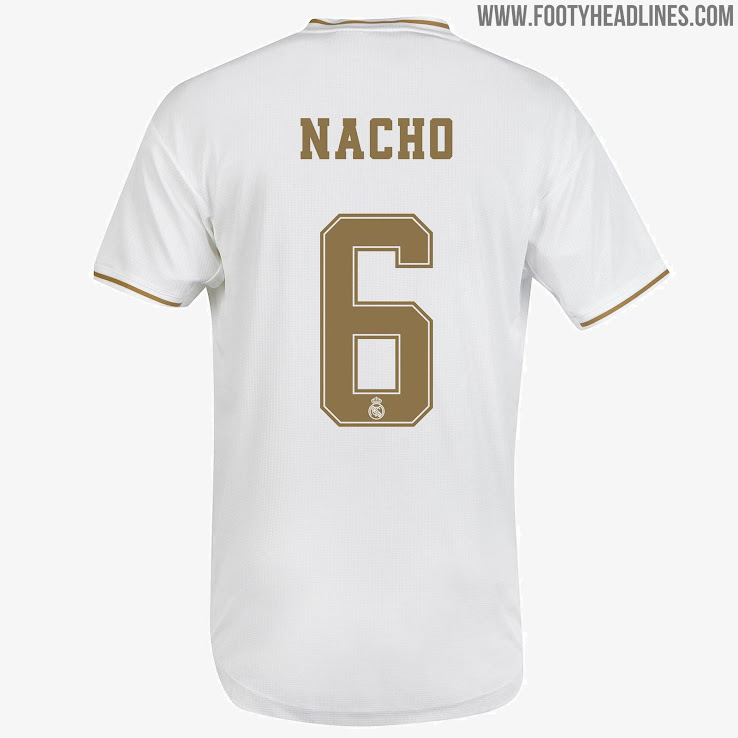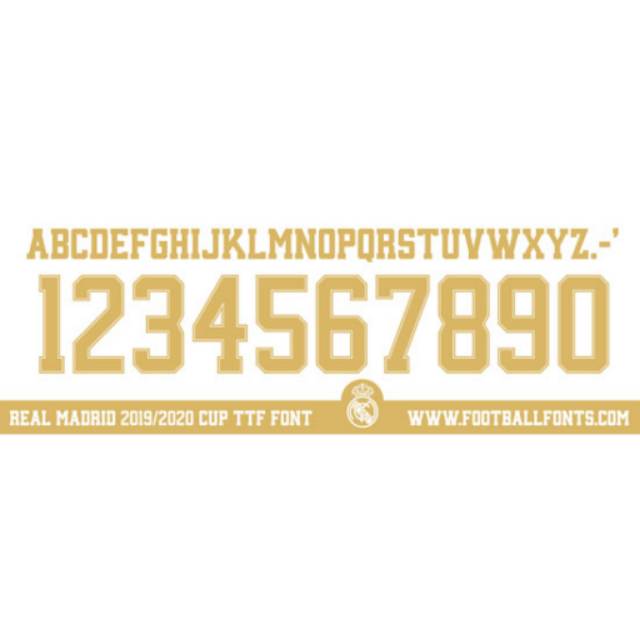
Real Madrid Font 2019
Font real madrid 2019 adalah jenis font yang digunakan pada jersey club real madrid untuk musim 20192020.
Real madrid font 2019. Will eden make a great impact on madrid squad next season. Download real madrid uefa champions league 20192020 adidas font please do not make this font available in other web sites andor forum. Dortmund font 2019 2020 here i give you the font of borussia dortmund for 20192020 season.
All of la ligas teams atletico madrid barcelona real betis valencia ath. Here i give you the new real madrid european font for 20192020 season. Jersey real madrid ini dikenal sangatlah fenomenal.
Used for 20182019 season in cup competitions champions league copa del ray and 2018 fifa club world cup. This font available in. Author massimiliano macaluso a few days ago adidas unveiled the new real madrid home kit for 20192020 a classic camiseta blanca with golden details very similar to the one already worn by during the 20112012 season.